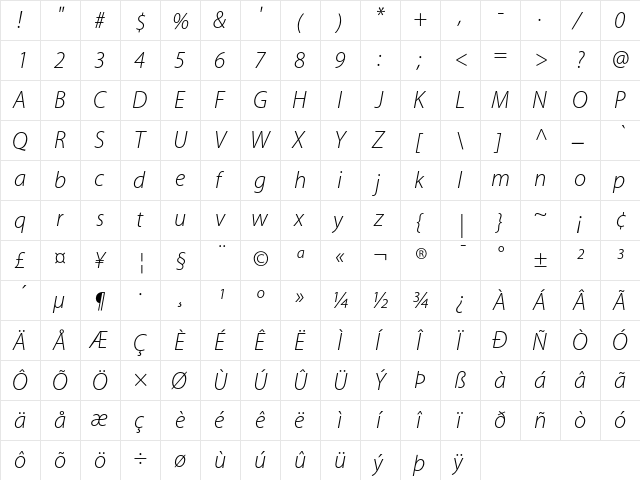
Adobe Corporate ID Myriad Light Italic Font Preview
Design Context for Adobe Corporate ID Typeface
Adobe Corporate ID offers clean, dependable letterforms without strong stylistic allegiance, making it a practical choice for designers who need flexibility. The dynamic lean of this cut emphasises speed and emphasis in any layout. Its slender proportions lend an understated elegance to any composition.
Pro Tip: Use Adobe Corporate ID for emphasis, pull quotes, and subheadings where its slanted energy can add rhythm to the layout.